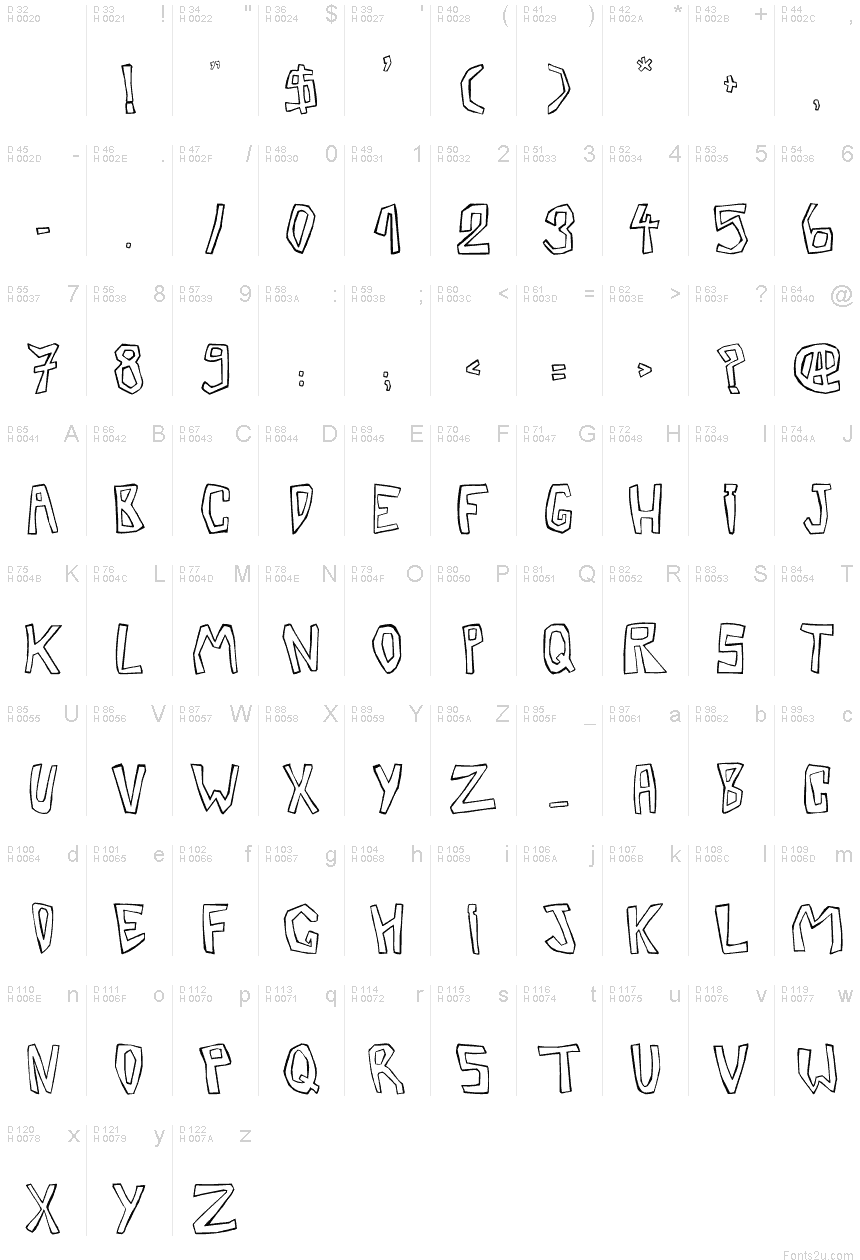
BarbTwistedOutline
Barbera Twisted is a handdrawn font for punky decorative headlines in 3 styles: Outlines, Blacks and 3D-characters!
Its all caps - the small characters are different variants of the caps to mix everything up. (especially handy for double-letters). Be aware to manually adjust the Kerning.
I designed it for punking up my theoretical paper for my diploma.
The 3-D variants have 2 directions - depending on upper or lower case.
Barbera Twisted Outline
Barbera Twisted is a handdrawn Font designed to shatter Gab's Diploma Layout.